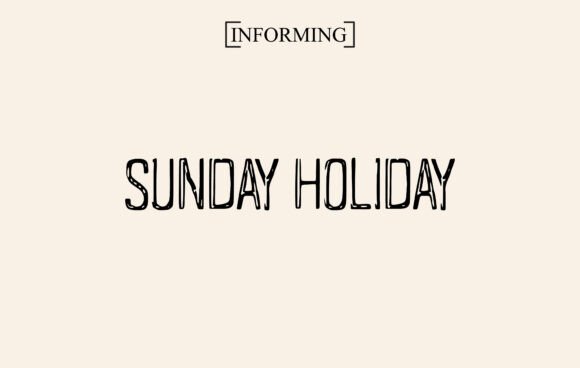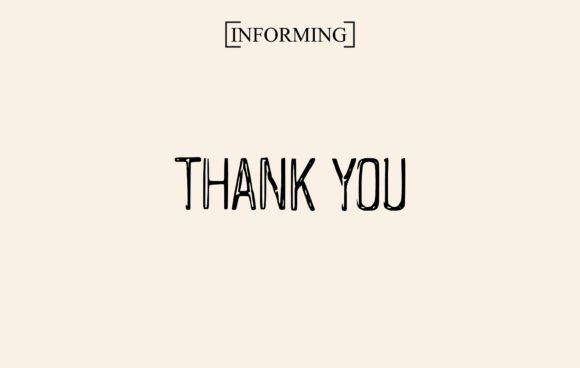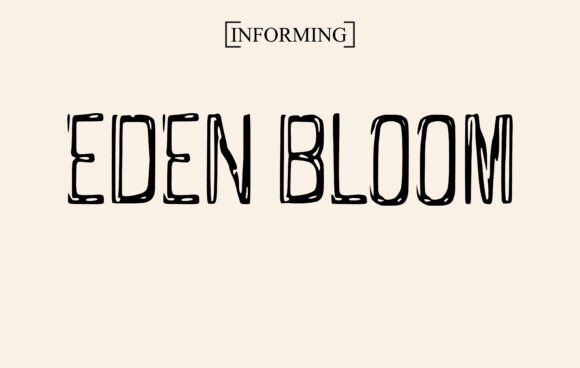
Introduction to Eden Bloom Font
This font is designed to be a true favorite and it has the potential to take your creative ideas to the highest level This font is legible and looks great as a title or body text.
This font would be perfect for many different designs for magazine headlines, t-shirts, social media, branding, wedding invitations, cards, etc .
Key Features of Eden Bloom Font
Why Choose Eden Bloom Font?
Eden Bloom Font offers exceptional quality and versatility, making it a valuable addition to your design toolkit. Whether you’re creating for personal projects or commercial use, Eden Bloom Font delivers professional results.